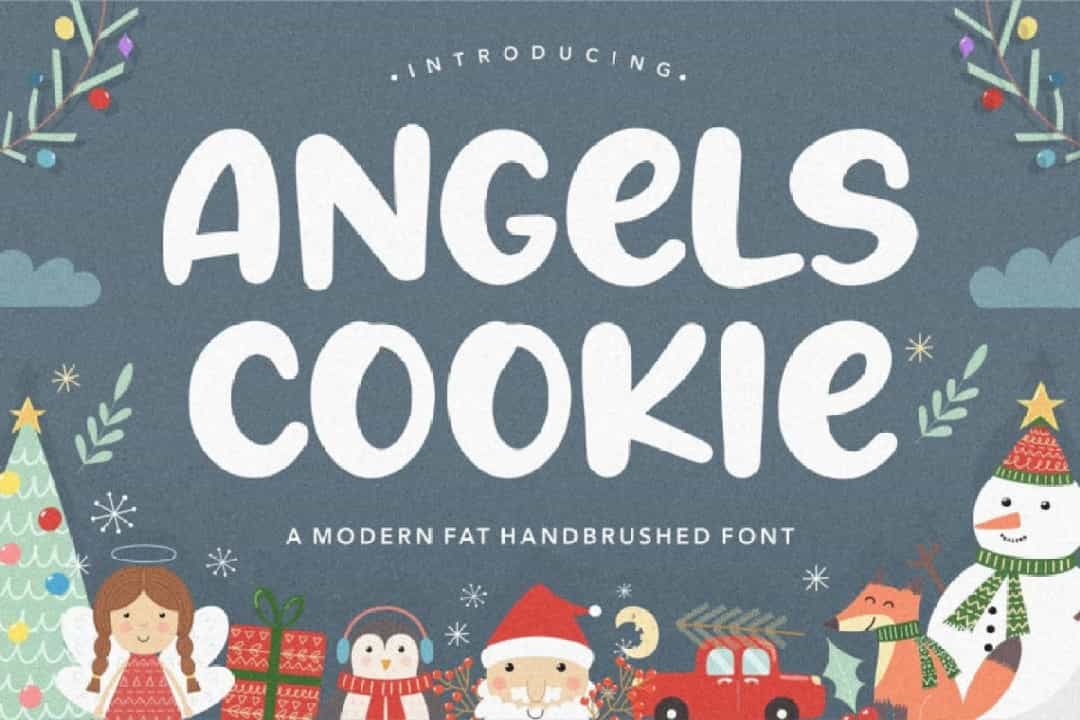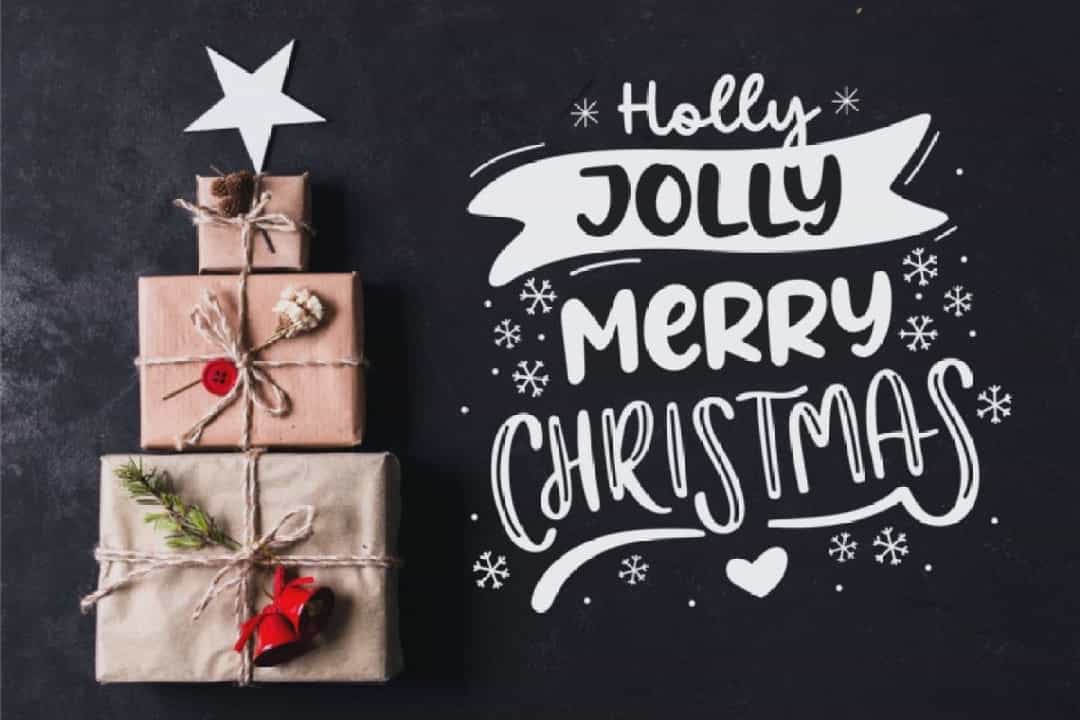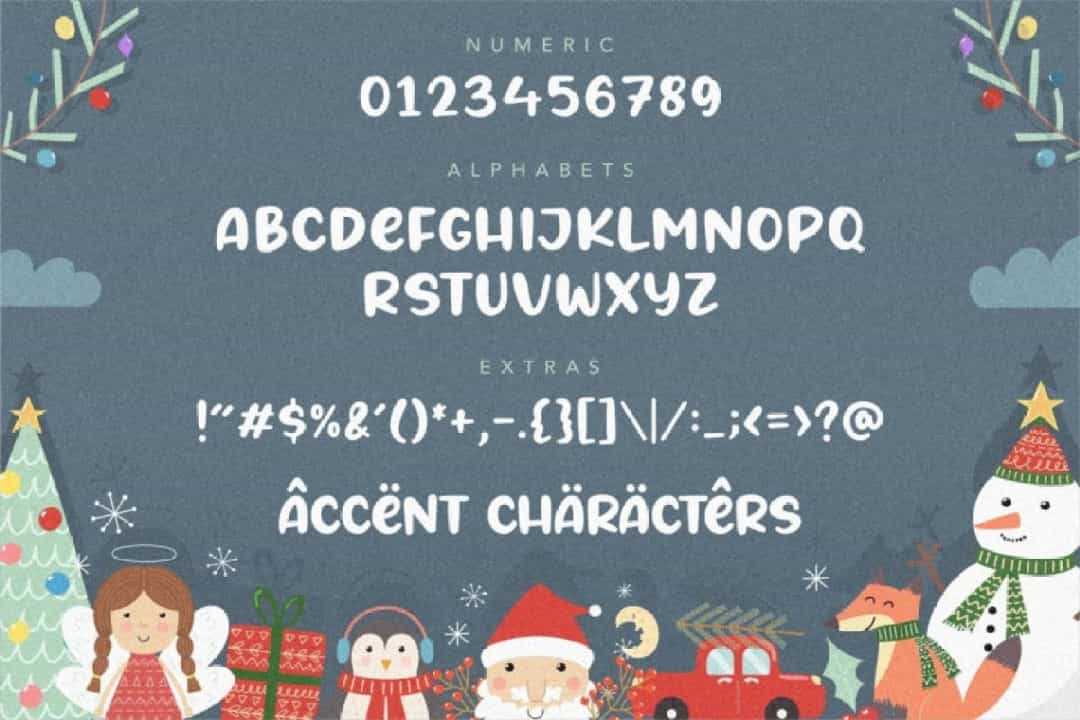
Angels Cookie font can be classified as a modern fat hand brushed font that has been created to be noticeable. Suits for headlines that have to grab attention as well as official reports.